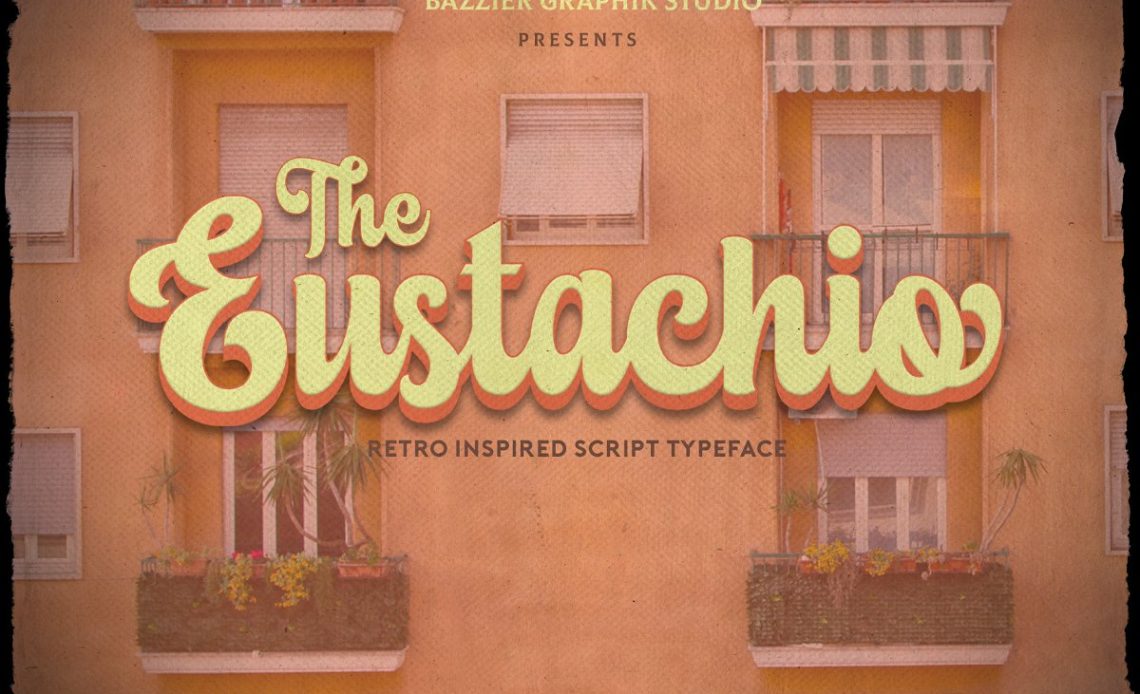
Introducing the mesmerizing Eustachio Script font, a true masterpiece in the world of vintage book fonts. Created by the talented bazzier graphik, this font is here to elevate your creative projects to new heights. Get ready to embark on a journey back in time, where the charm of retro movies comes alive in every letter.
With its vibrant and colorful aesthetic, Eustachio Script font captures the essence of vintage inspiration like no other. Whether you're designing a logo, working on a print project, or seeking the perfect title for your masterpiece, this font is your golden ticket to success. Its versatile nature allows it to shine in any setting, making it a must-have for designers, artists, and enthusiasts alike.
But what sets Eustachio Script font apart from the rest? Let's dive into its exceptional features. This font comes in a set of Regular and Italic styles, providing you with endless possibilities to explore. But that's not all – it also offers a range of Opentype features, including Alternative characters, Ligatures, and Multilingual characters. This means you can truly customize your text and bring your vision to life with ease.
Imagine the impact of beautifully crafted typography that speaks directly to your audience's emotions. Eustachio Script font is more than just letters on a page – it's an experience. It evokes nostalgia, warmth, and a sense of wonder that transports your readers to a bygone era. Let your words dance across the page, captivating hearts and minds with every stroke.
In conclusion, Eustachio Script font is the ultimate choice for those seeking a vintage book font that truly stands out. Its captivating charm, versatile styles, and abundance of features make it a must-have for any design project. Step into the world of retro movies and let your imagination run wild with Eustachio Script font – the possibilities are endless.